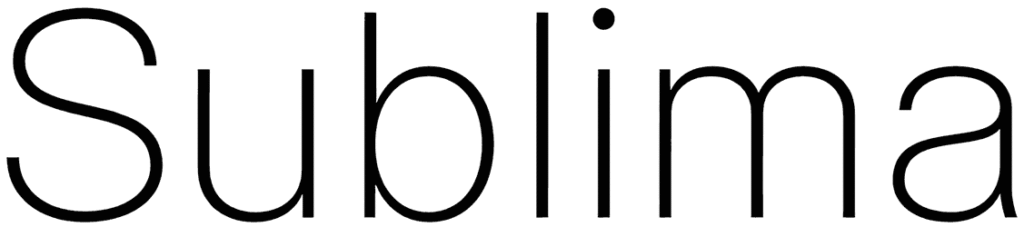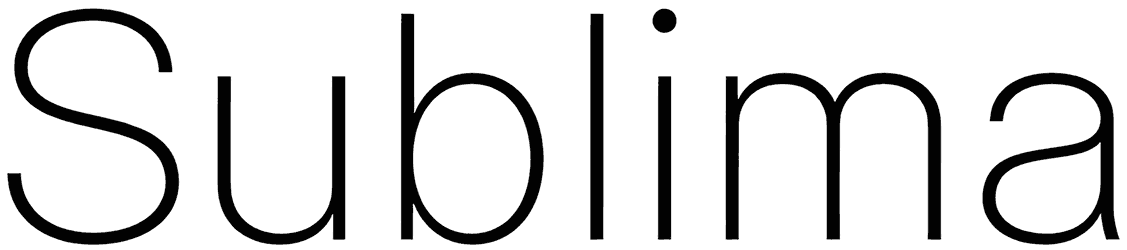
Sublima Font
Some organic words in the cordial frame make your writing design eminence, and here, Sublima can take it pleasingly. This sans serif font holds a delicate calligraphy with a trendy mood that can harmonize with many themes.
This elegant font comes up with two different weights to make a cherry delight in designing many fashions, branding, packaging, main texts, or such like to successfully conduct. Let it run and see its exquisite creation.
Sublima is meticulously designed to adapt its personality to any project. With 302 alternative characters and 18 stylistic sets, you get unlimited power to take your creativity to the next level.
Sublima is the smartest choice for any creative project. With a single click, you can change its typographic personality and adapt it to your desired style. Choose between 3 predefined styles or create your own style by combining the hundreds of alternate characters available.